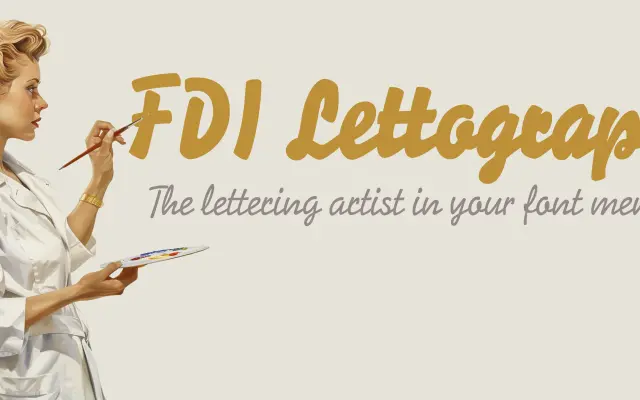
FDI Lettograph
FDI Type Foundry · Walter Wege, Ralf Herrmann · 2024
A faithful digitisation of Berthold's Signal fonts from the 1930s, offered in three weights as individual OpenType files or a single variable font.
Reviving all three original styles of Berthold's Signal type family, this release was digitised directly from letterpress sources by Walter Wege and Ralf Herrmann. The three weights — Light, Regular and Black — suit display applications including logos and headlines where a mid-century geometric character is wanted. Available as a free download under the FDI FFL licence, with Kickstarter backers credited in the release.
A revival of Berthold's Signal fonts from the 1930s, these letterpress-derived letterforms are best categorised as display given their recommended use for logos and headlines rather than continuous text.